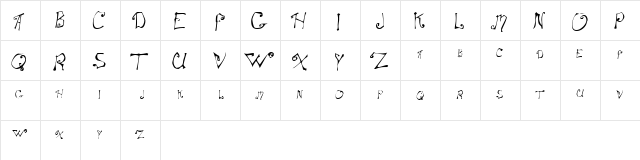
SpitCurl Regular
Design Context for SpitCurl Typeface
SpitCurl is a composed and adaptable typeface that performs quietly and consistently across a wide range of design contexts.